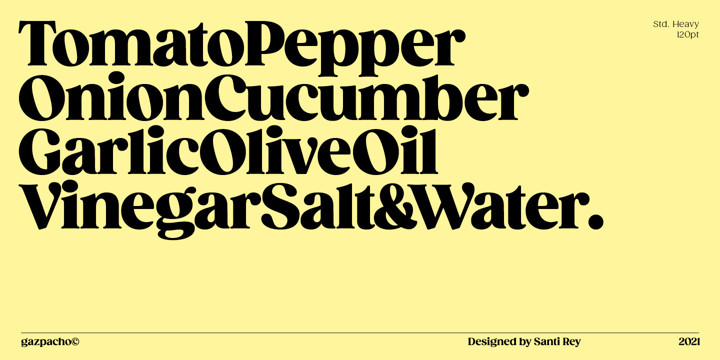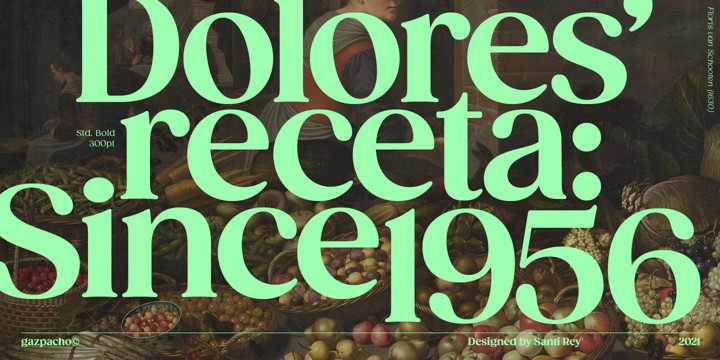
Gazpacho Font
Gazpacho is inspired by the serif typefaces used in editorial media in the 70s and 80s.
The morphology of the letterforms makes this typeface ideal for display purposes like logos and big, bold headlines. Also, thanks to its large x-height it works perfectly on headlines with tight leading. On the other hand, its high contrast and very simple and recognisable shapes makes it highly readable, so it works on small, long texts as well.
It comes in 7 different weights and 2 styles (Standard & Italic).